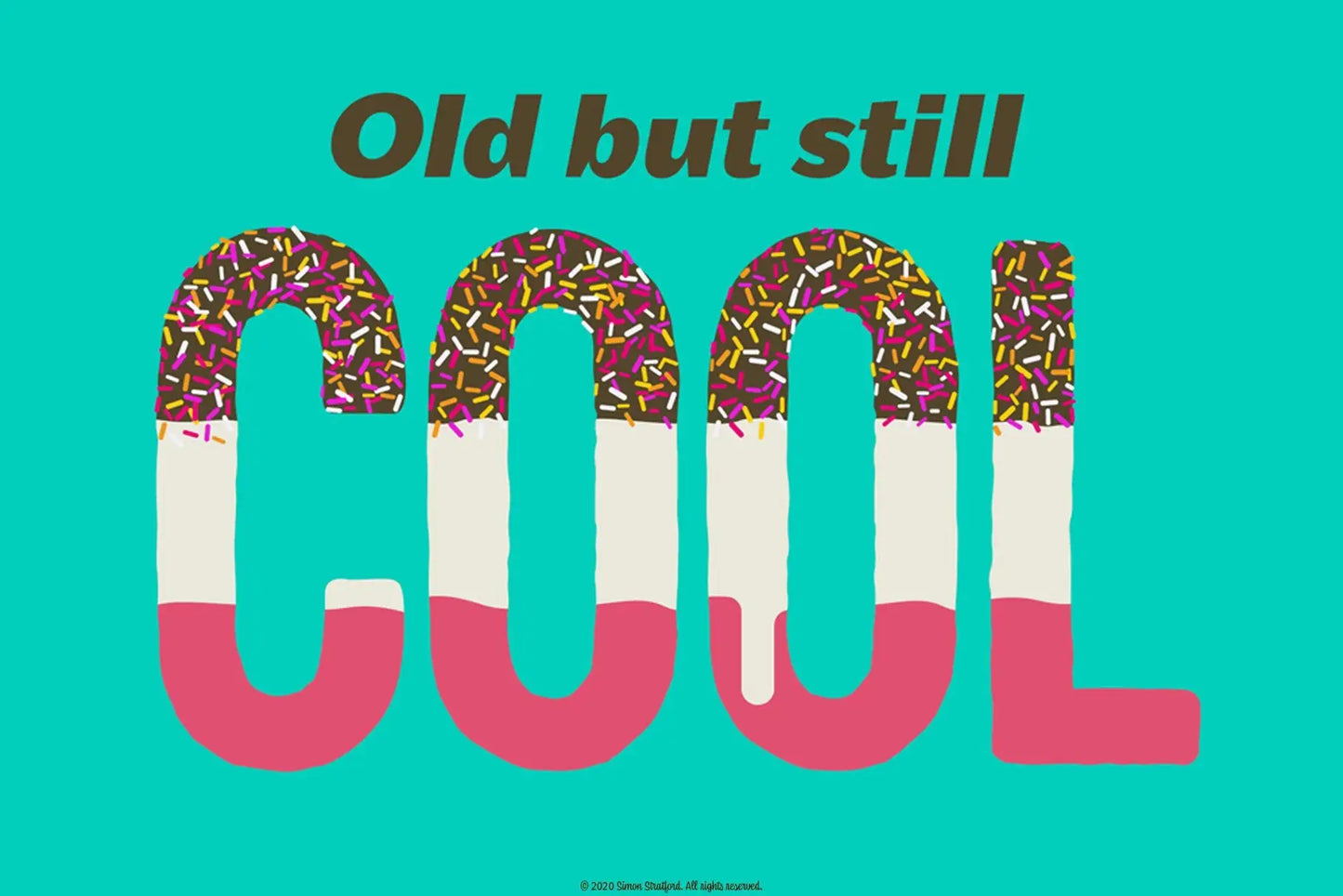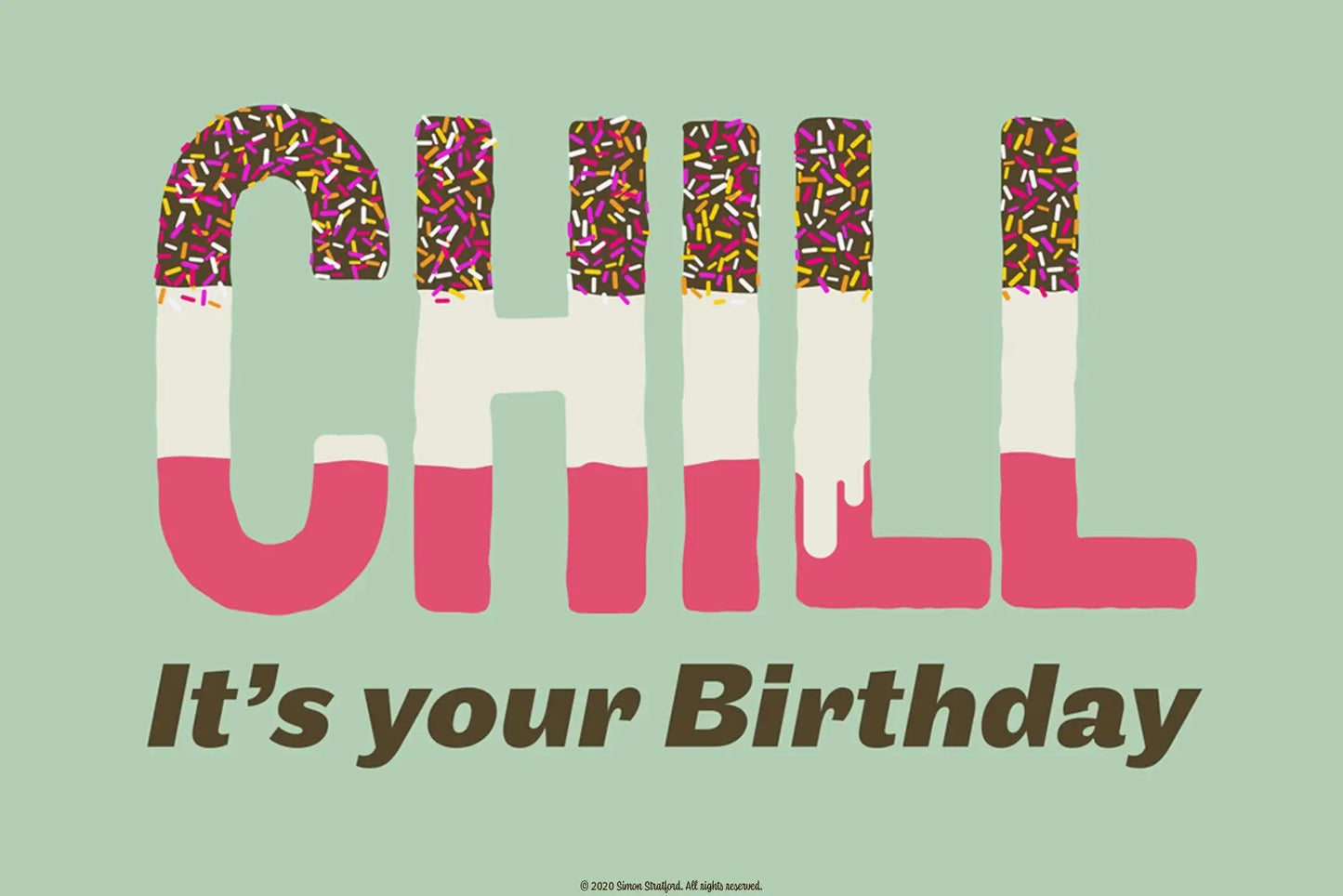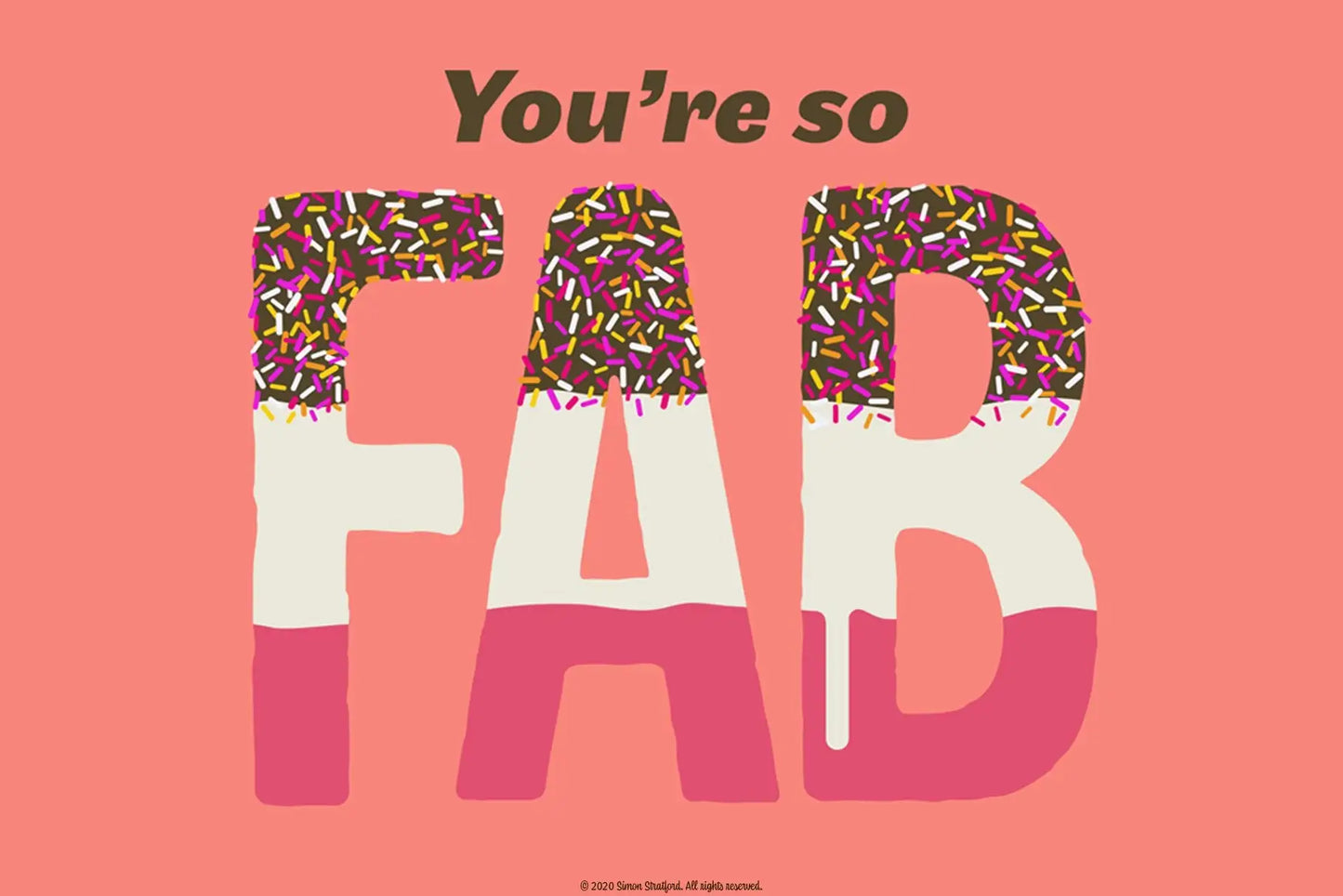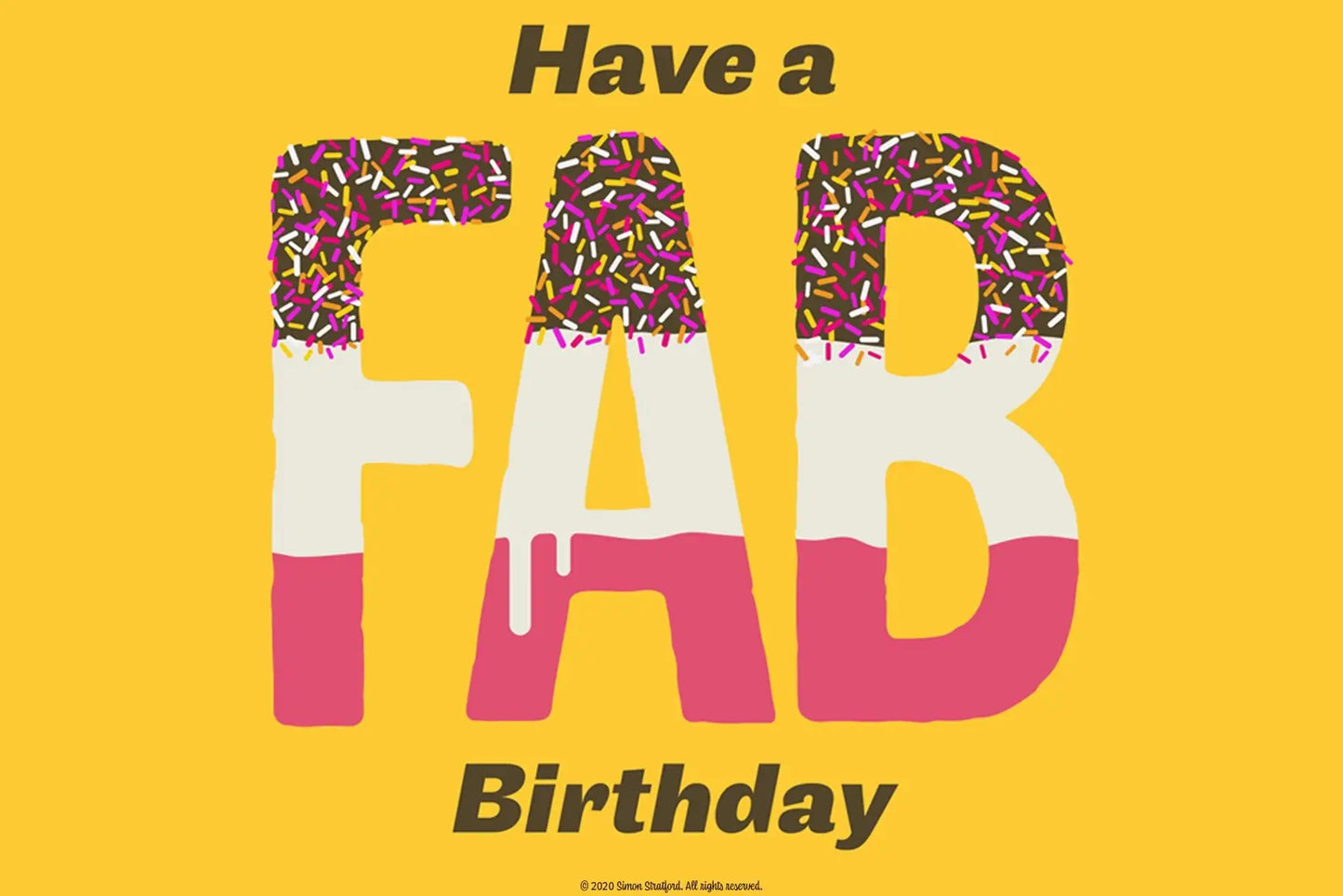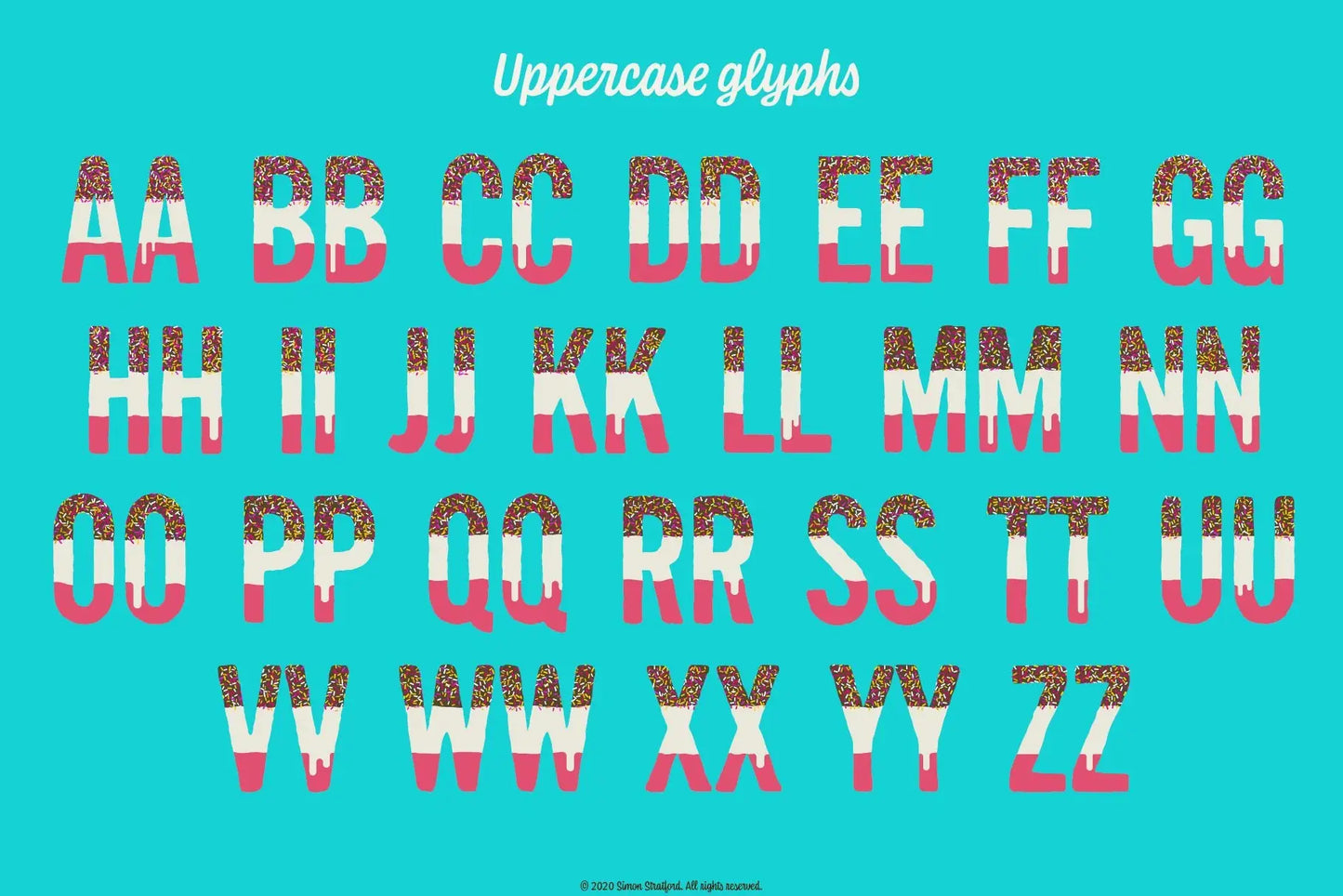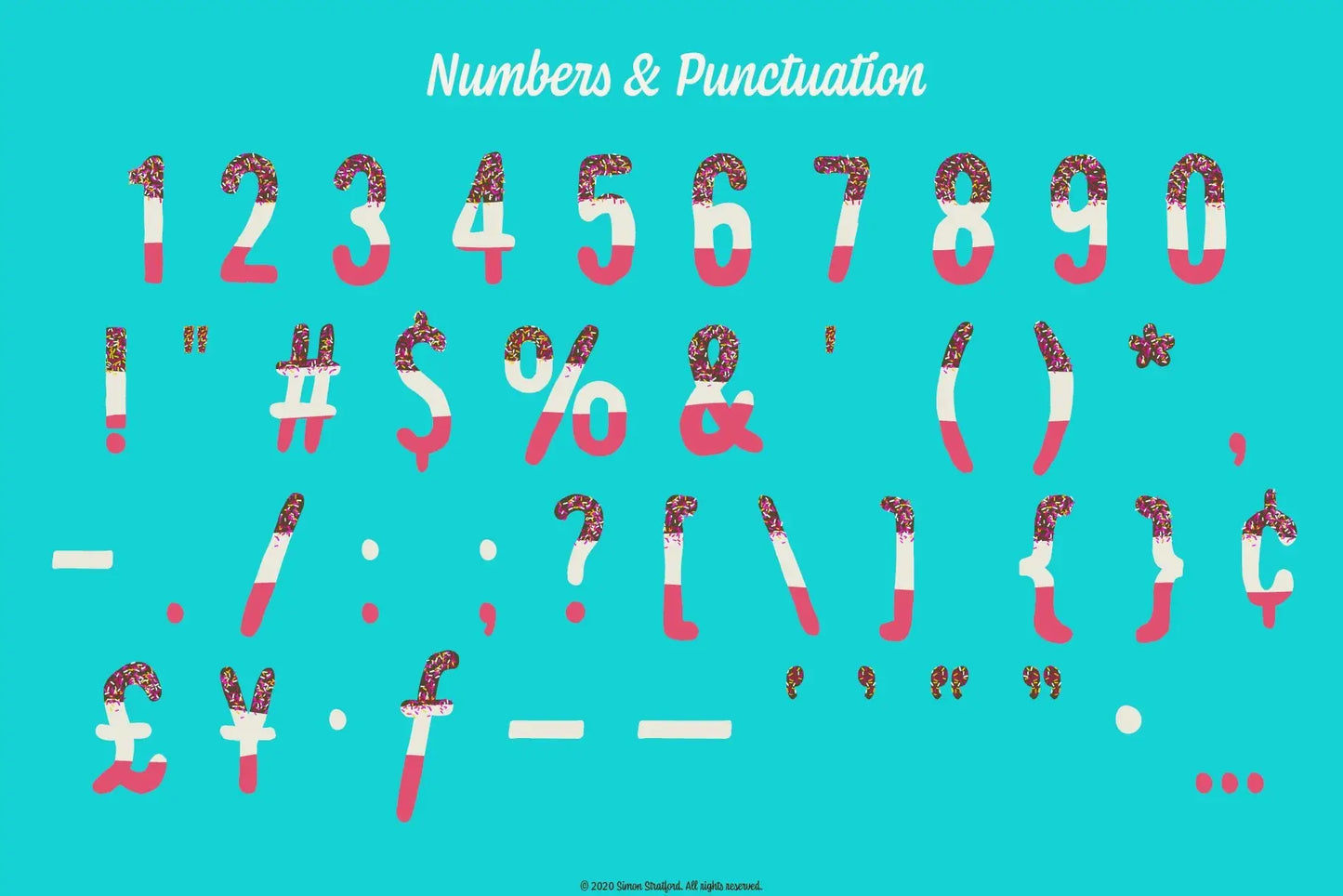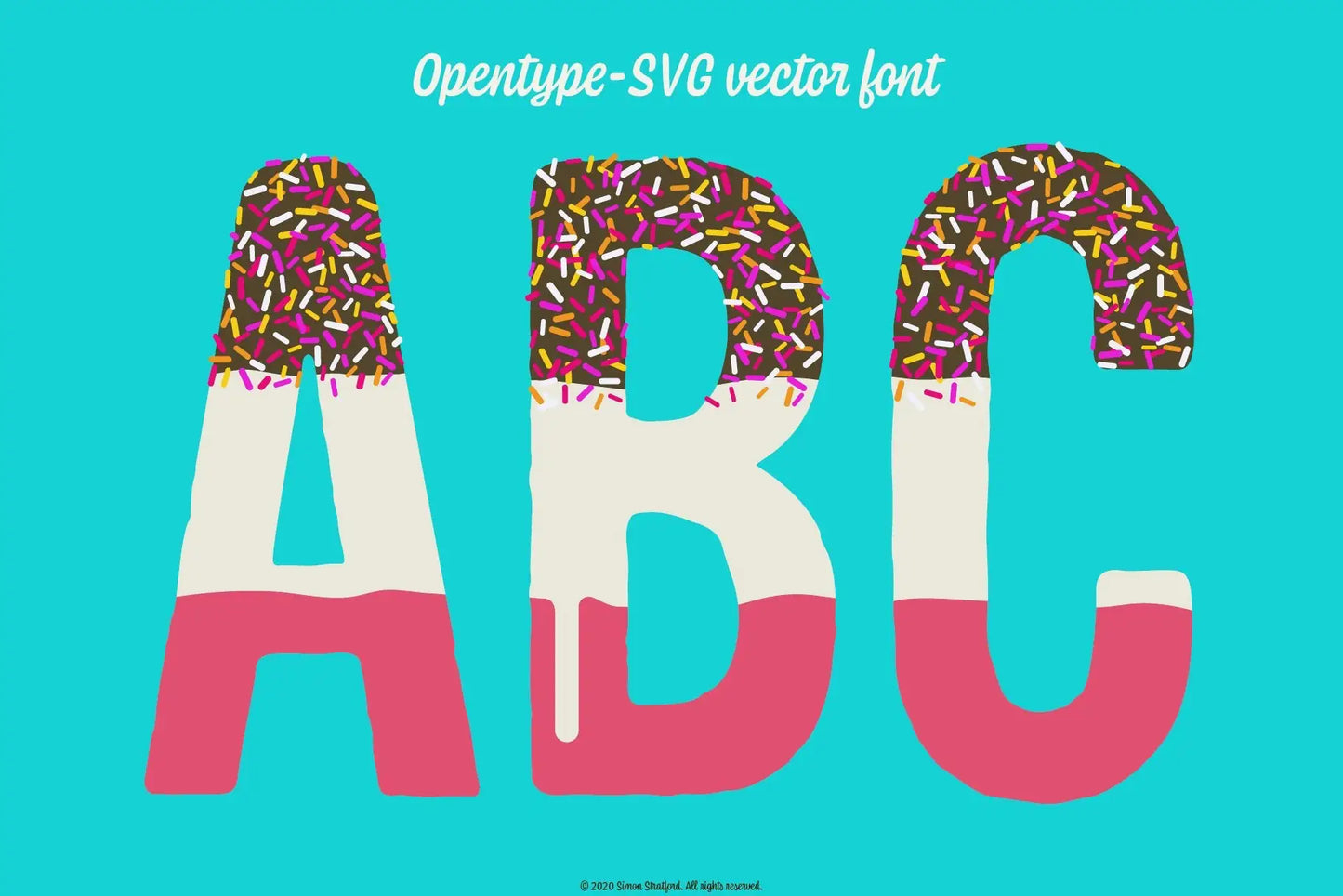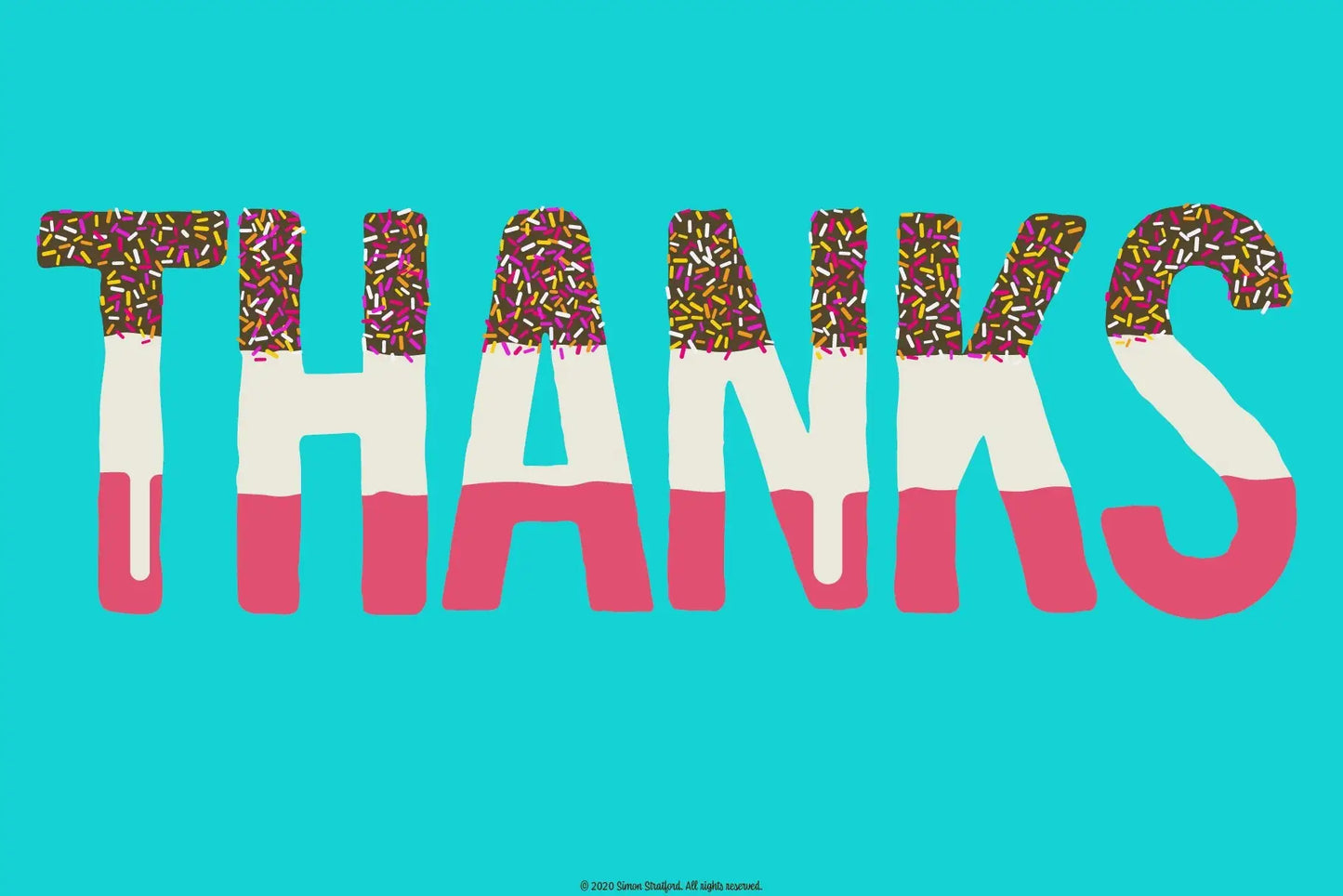
Fab Lolly SVG
About Fab Lolly SVG
What could be more delightful on a summer day than a Fab Ice Lolly? Do you remember those multi-layered delights? They're a lovely slice of nostalgia that takes me straight back to my childhood.
Now, let's talk about inspiration. That delectable ice lolly, decorated with a chocolatey coating and a sprinkle of colourful joy on top – that's the idea behind this charming typeface.
I've transformed that fruity lolly into a font, complete with two versions: one with a playful drip and one without. But here's the exciting part – it comes in full colour, thanks to the new OpenType-SVG font format.
You can infuse your designs with vibrant, eye-catching colours right within your design application – marvellous!
This vintage display typeface, with its bold and playful colours, is the perfect choice for crafting birthday cards, creating invitations, or adding a touch of retro charm to anything where that nostalgic look and feel.
- Uppercase letters only, but two versions (drip and non-drip)
- Numbers and basic punctuation
It only has support for basic Latin A-Z.
If the Fab Ice Lolly was a celebrity
If the Fab Ice Lolly was a celebrity, it would be the vivacious and colourful Cyndi Lauper. Much like Cyndi Lauper's vibrant and eccentric personality, the Fab Ice Lolly is a burst of joyful and playful flavours, evoking a sense of fun and nostalgia.